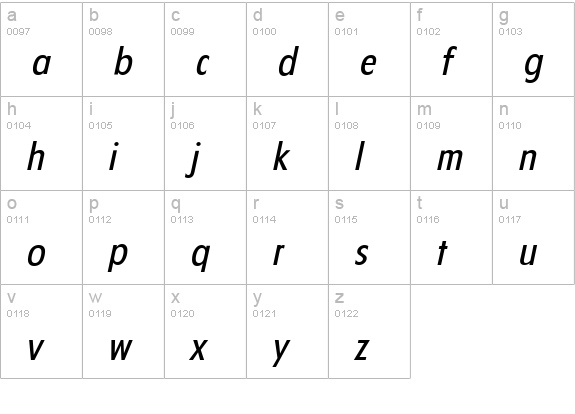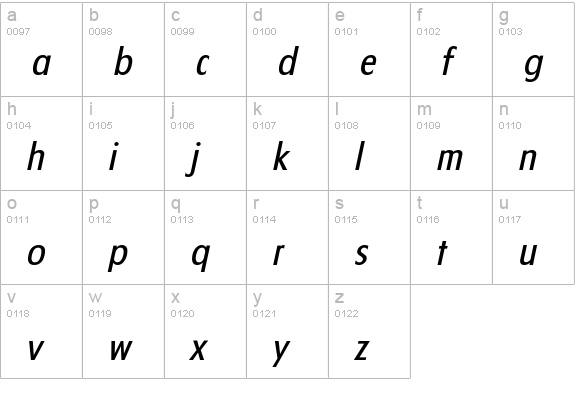
FloridaSerial-Italic is a distinctive, italic variant in the FloridaSerial typeface family \xE2\x80\x94 well suited to design and typography projects.
FloridaSerial-Italic font is a sleek and stylish typeface that exudes elegance and sophistication. With its unique italic design, this font adds a touch of flair to any project, making it perfect for use in headings, logos, and other design elements. The flowing curves and sharp angles of FloridaSerial-Italic give it a modern and dynamic look that is sure to catch the eye. The best part? FloridaSerial-Italic font is available for free download at FontsMarket.com. This means you can easily add this stunning font to your collection without breaking the bank. So why wait? Enhance your designs with the beauty and versatility of FloridaSerial-Italic font today!